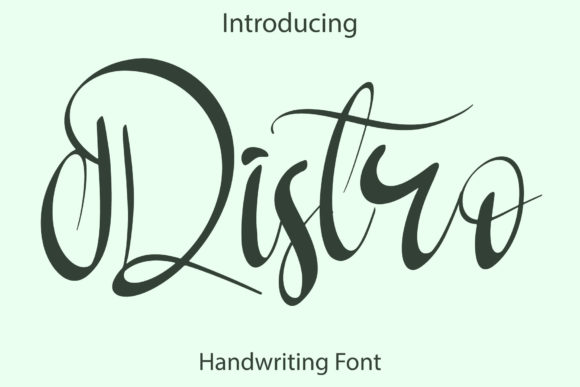
**Unleash the Enchanting Allure of Distro: A Handwritten Masterpiece for Coffee Shop Delights**
Prepare to be captivated by Distro, an exquisite script font born from the harmonious union of classic calligraphy and modern flair. Its every stroke and curve exudes an undeniable sophistication, effortlessly elevating your designs to unparalleled heights.
Immerse yourself in the world of coffee shops, where the aroma of freshly brewed beans intertwines with the warmth of friendly chatter. Distro's enchanting presence will grace your menus, signage, and branding materials with an air of timeless elegance. Picture your customers being greeted by an inviting menu adorned with Distro's graceful letters, promising a sensory journey that will tantalize their taste buds.
With Distro at your fingertips, you'll discover a world of creative possibilities. Its PUA encoding grants you effortless access to an array of captivating glyphs and ligatures, empowering you to craft messages that resonate with your audience on a deeper level.
Indulge in the beauty of Distro and witness the transformation it brings to your coffee shop endeavors. Its versatility knows no bounds, seamlessly complementing everything from vintage-inspired decor to sleek, modern aesthetics. Let Distro's enchanting allure become the cornerstone of your brand's visual identity, creating a lasting impression that will keep your customers coming back for more.
Embark on a coffee-infused design adventure with Distro today, where creativity and elegance harmoniously collide. Let its captivating essence elevate your projects to the highest echelons of style and sophistication.